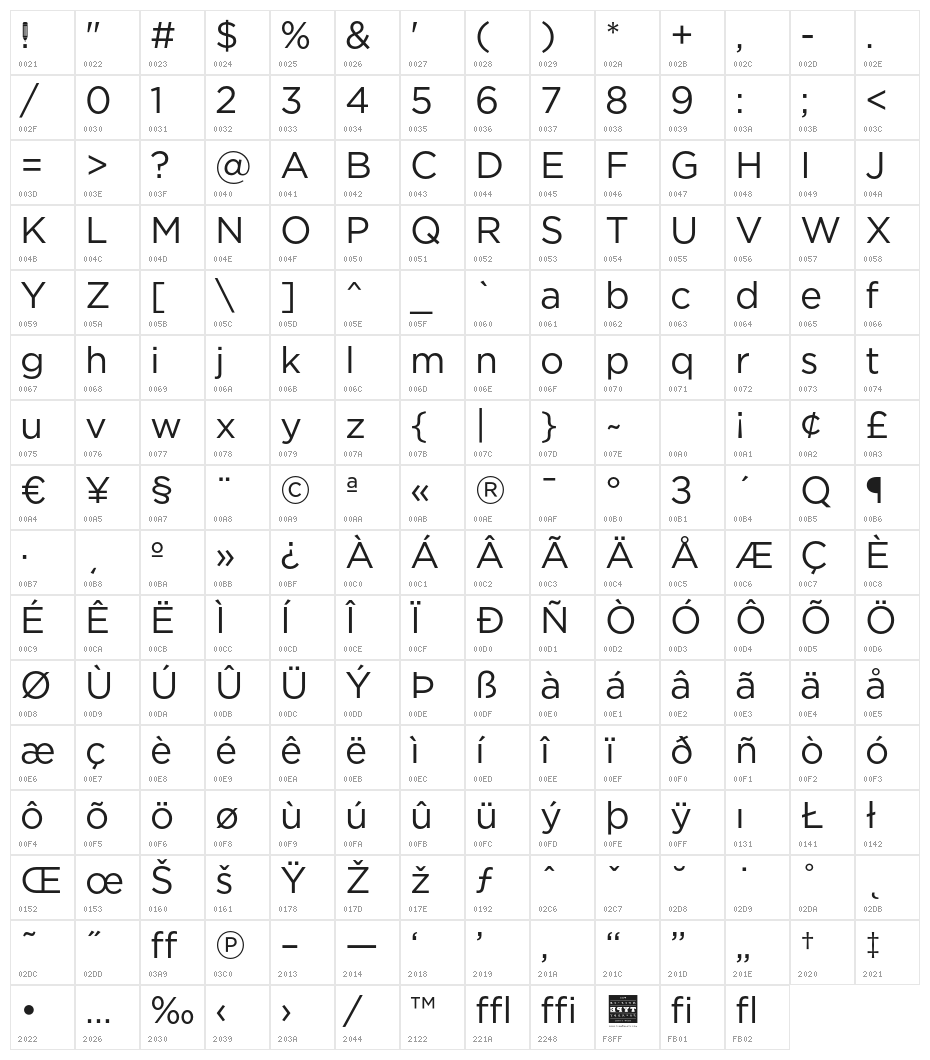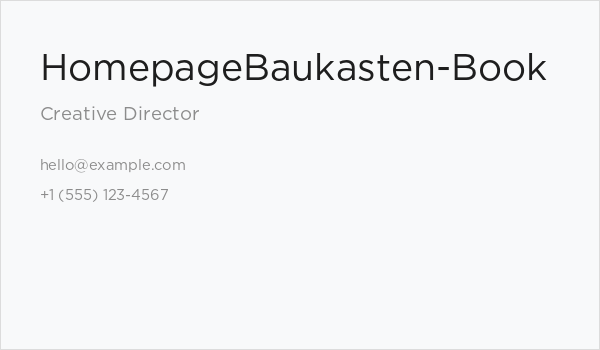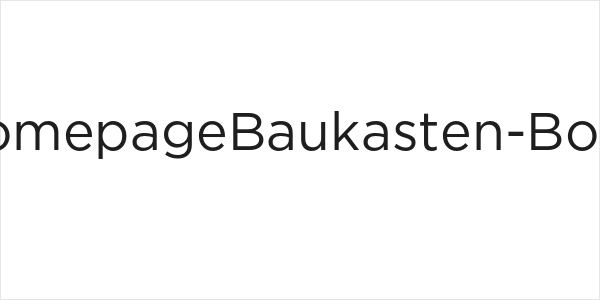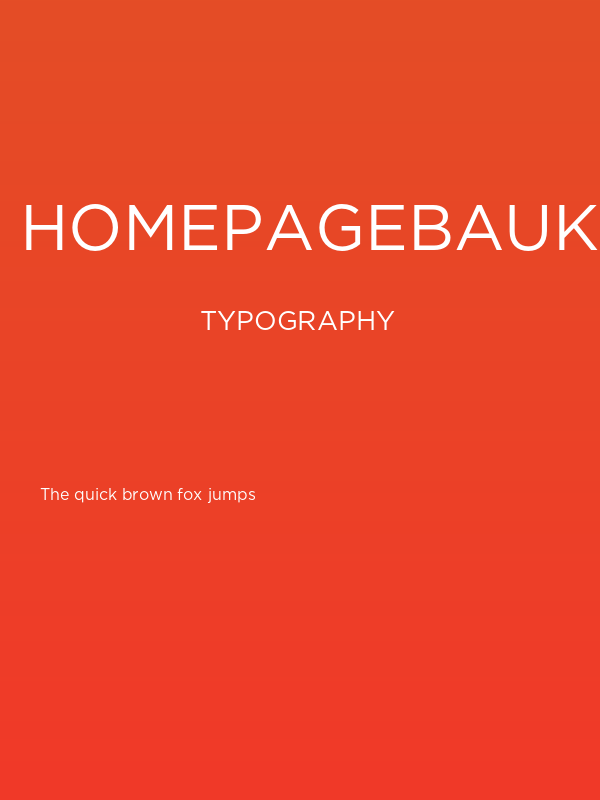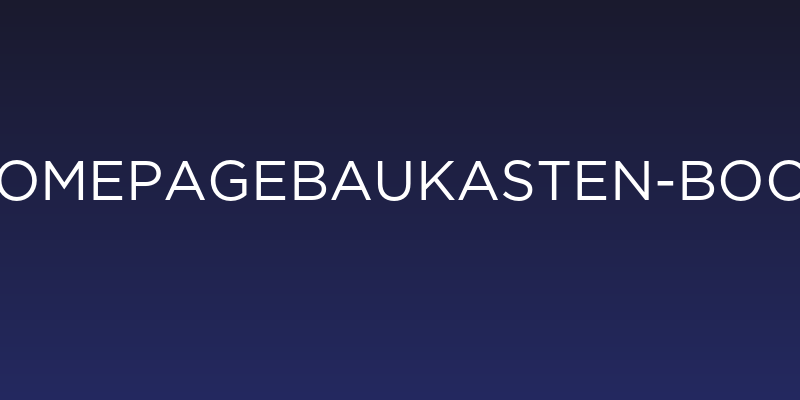
HomepageBaukasten-Book Font
HomepageBaukasten-Book Description
This font exhibits a clean and modern sans-serif style, characterized by its geometric shapes and uniform stroke width. The uppercase letters are bold and assertive, while the lowercase letters maintain a friendly and approachable appearance. The numerals are clear and legible, making them suitable for a variety of applications. Special characters are designed with simplicity and clarity in mind, ensuring they complement the overall aesthetic. The font's balanced proportions and consistent line weights contribute to its versatility, making it ideal for both digital and print media.